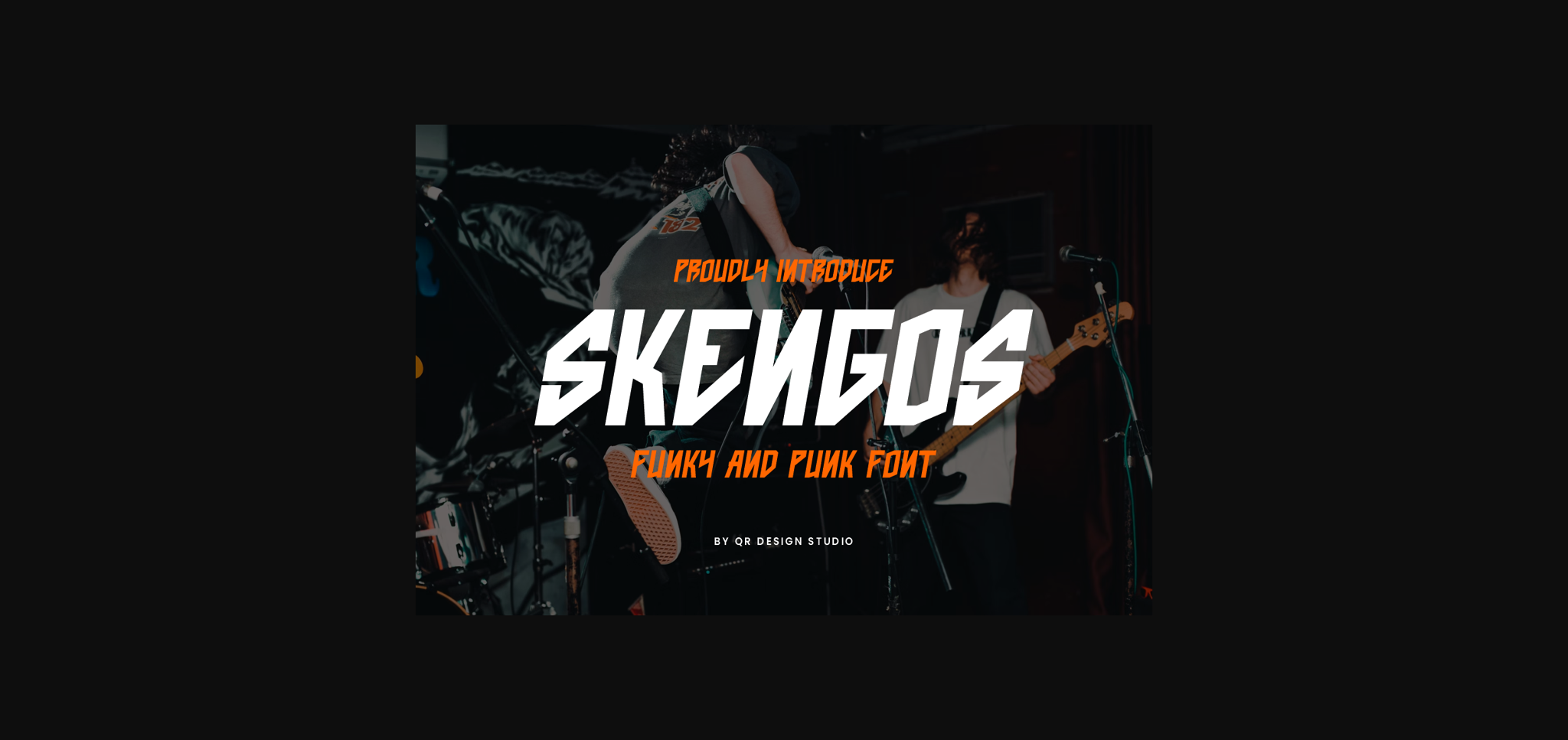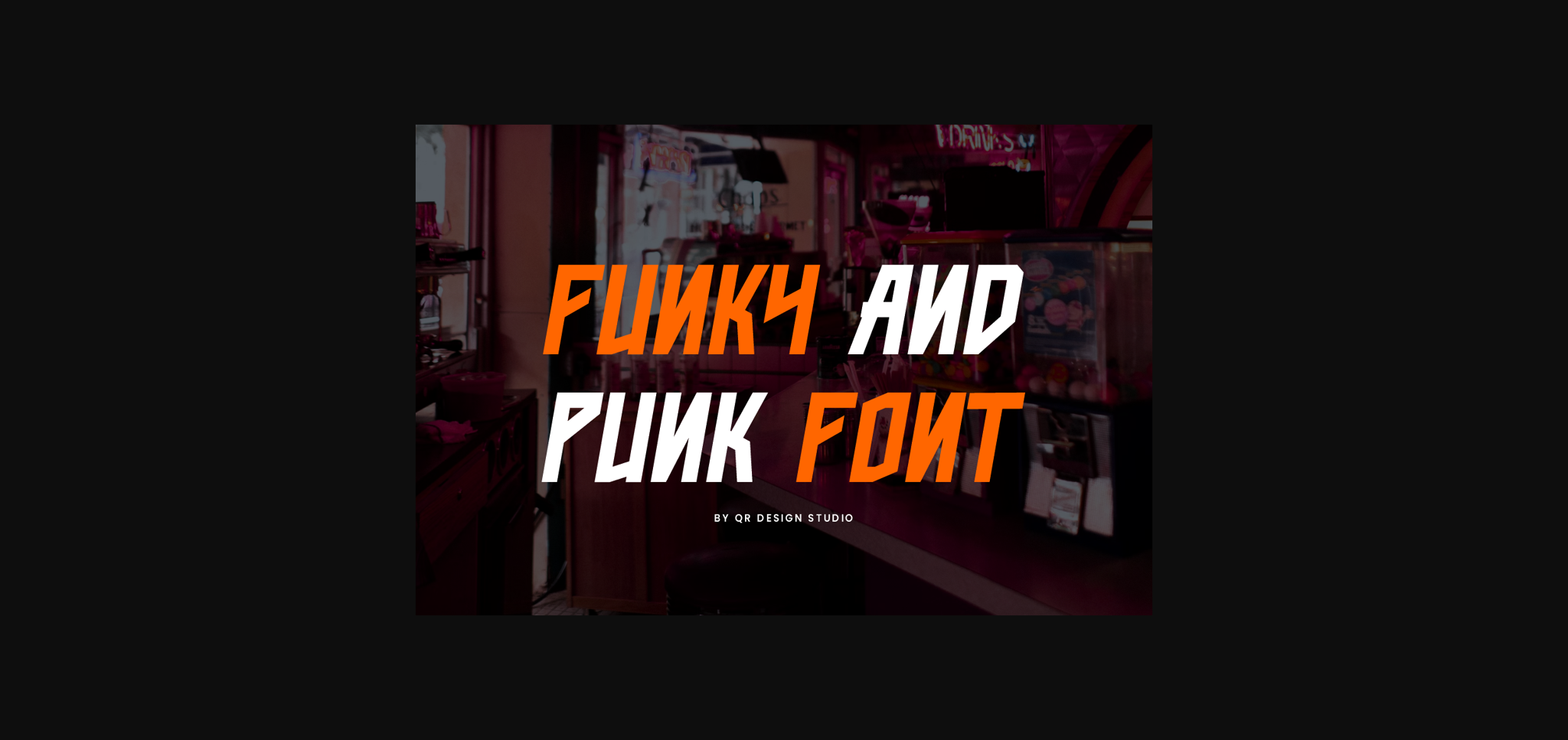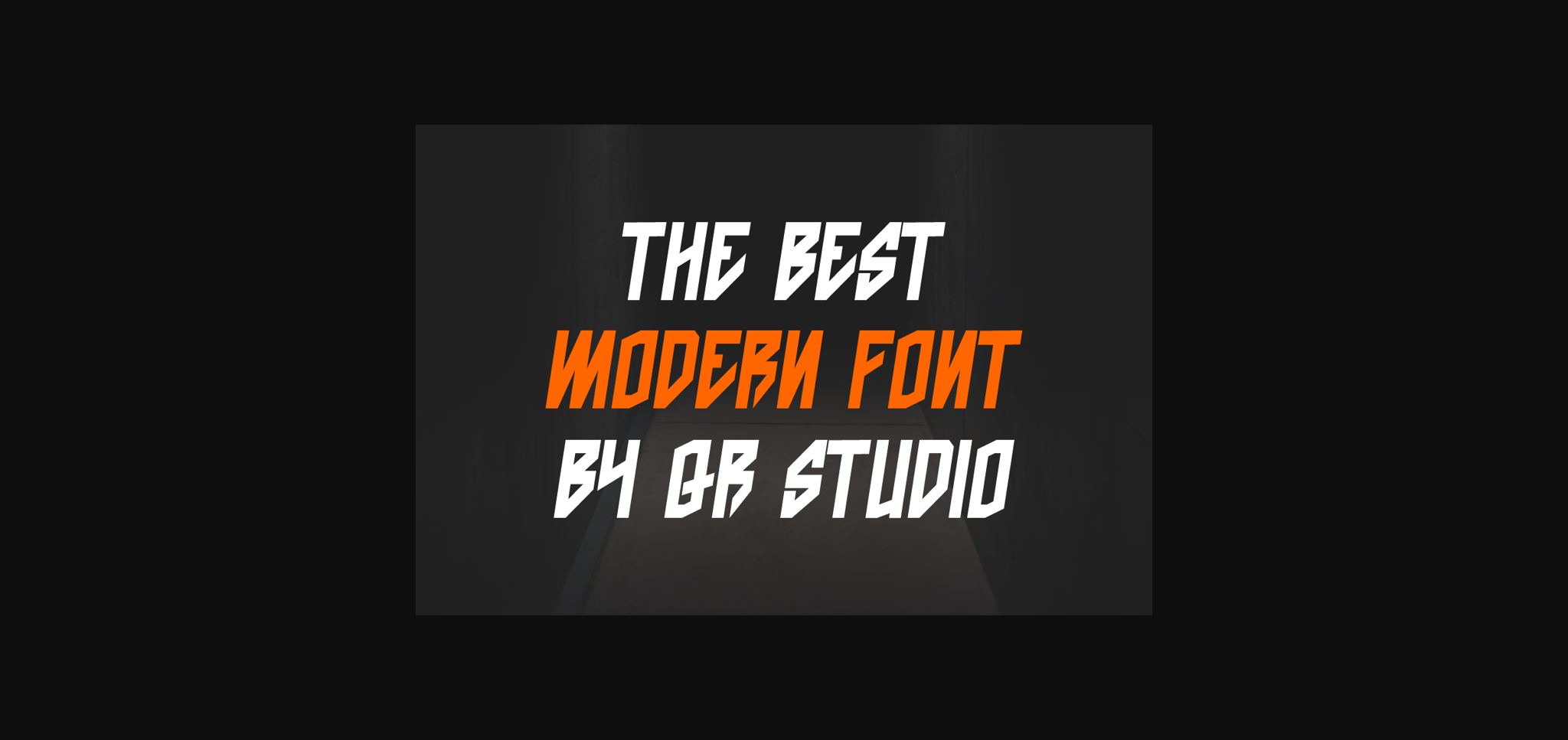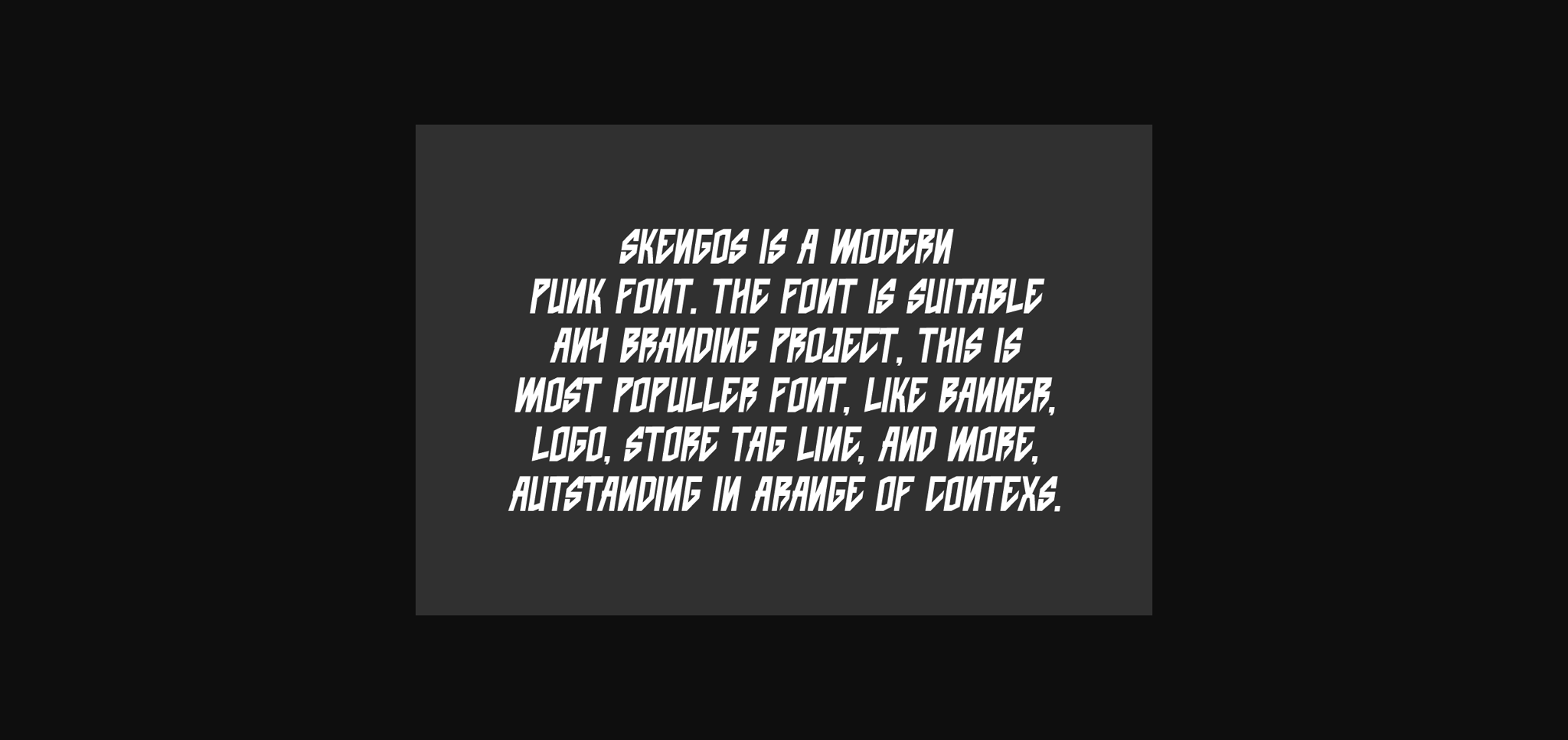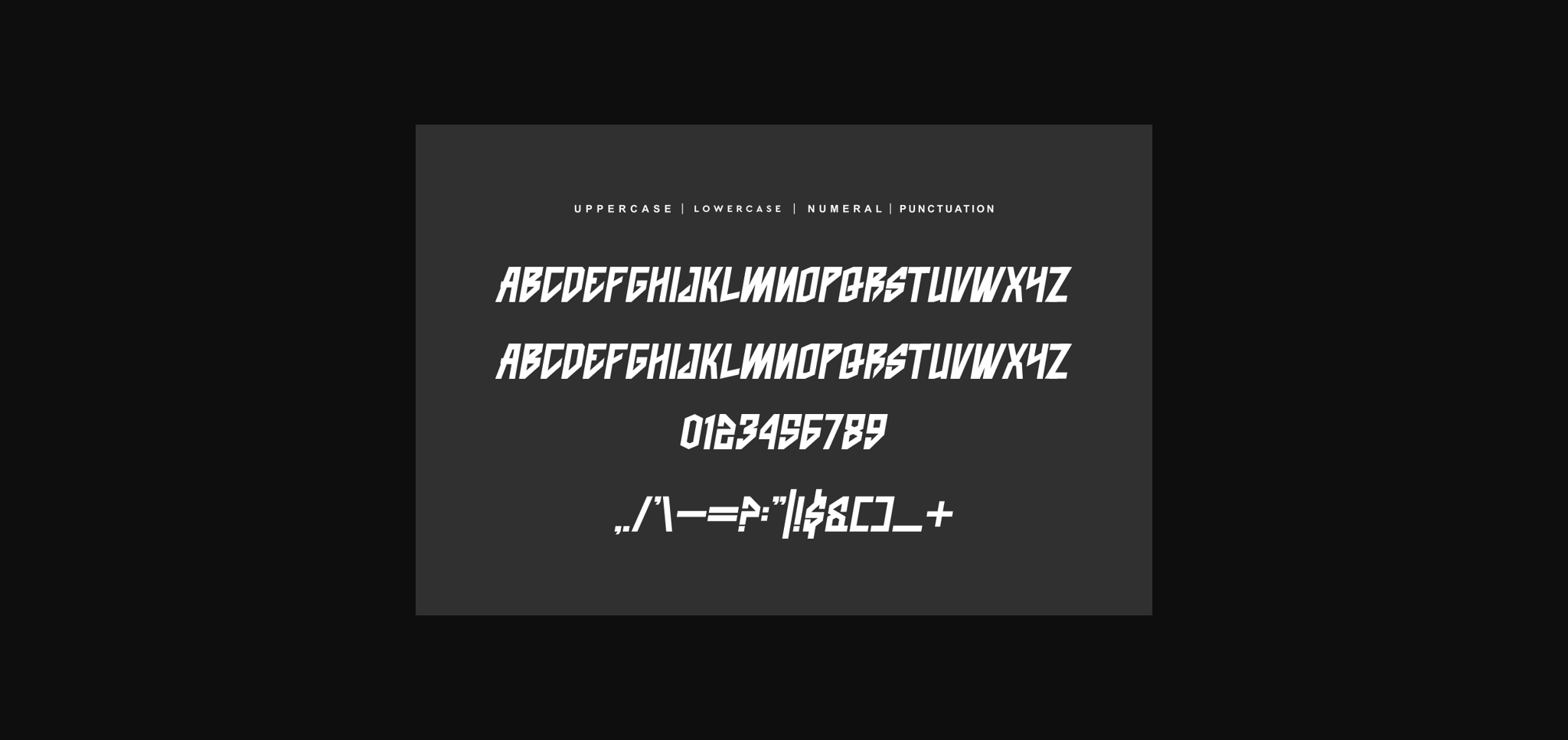
About Skengos Font
Skengos: a funky punk font that adds attitude to your designs. With bold strokes and an edgy style, it’s perfect for making a statement. Ideal for posters, album covers, or anything that needs a rebellious vibe. Let your creativity rock with Skengos!